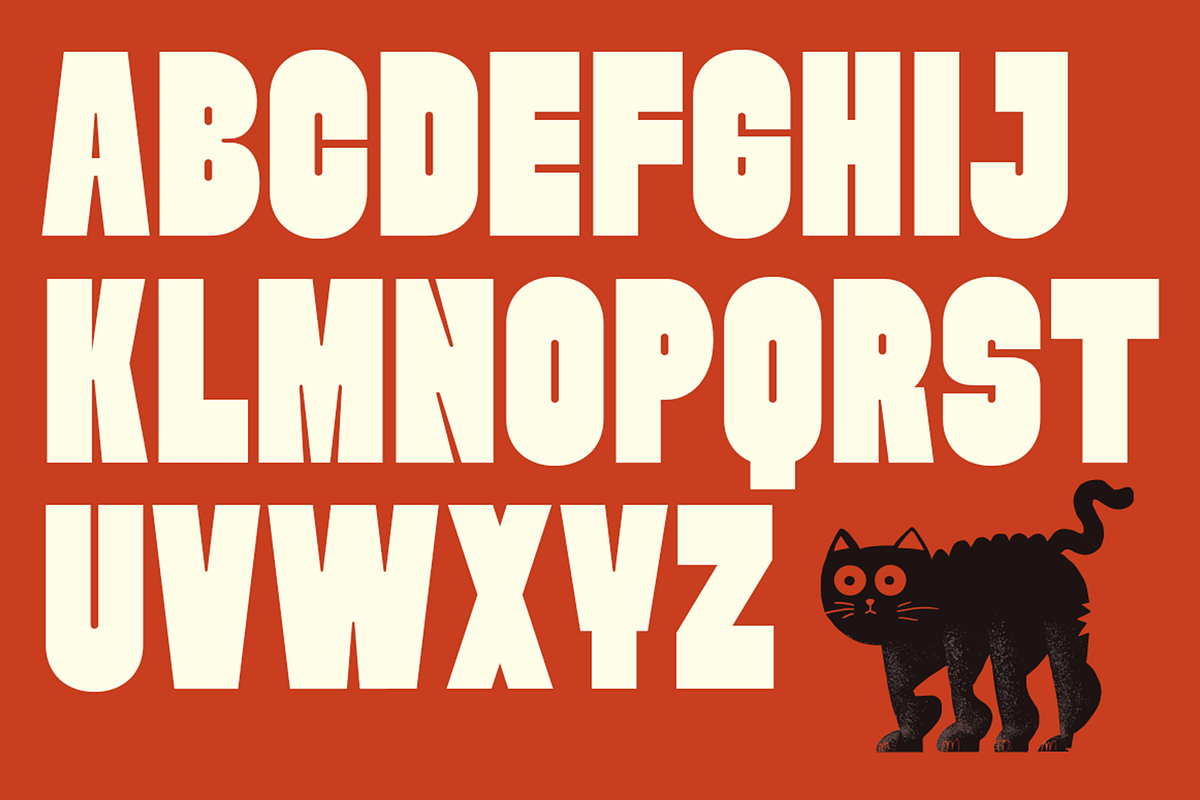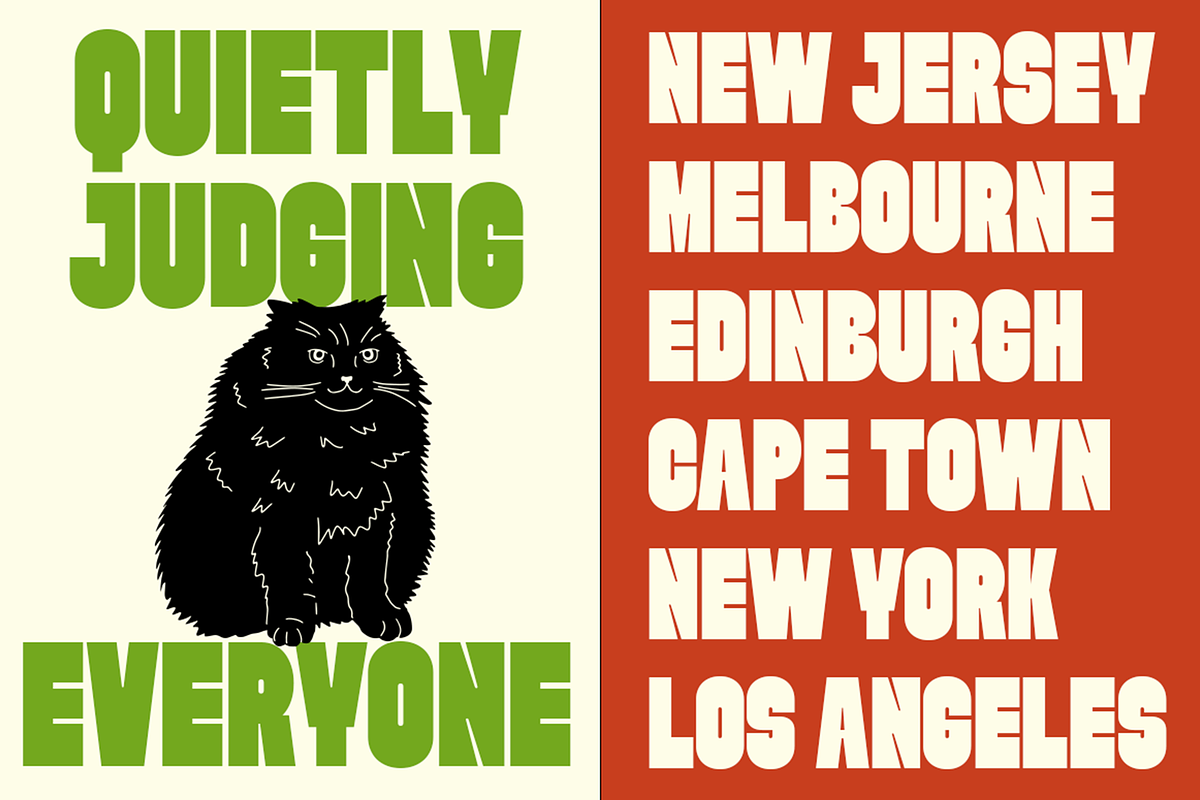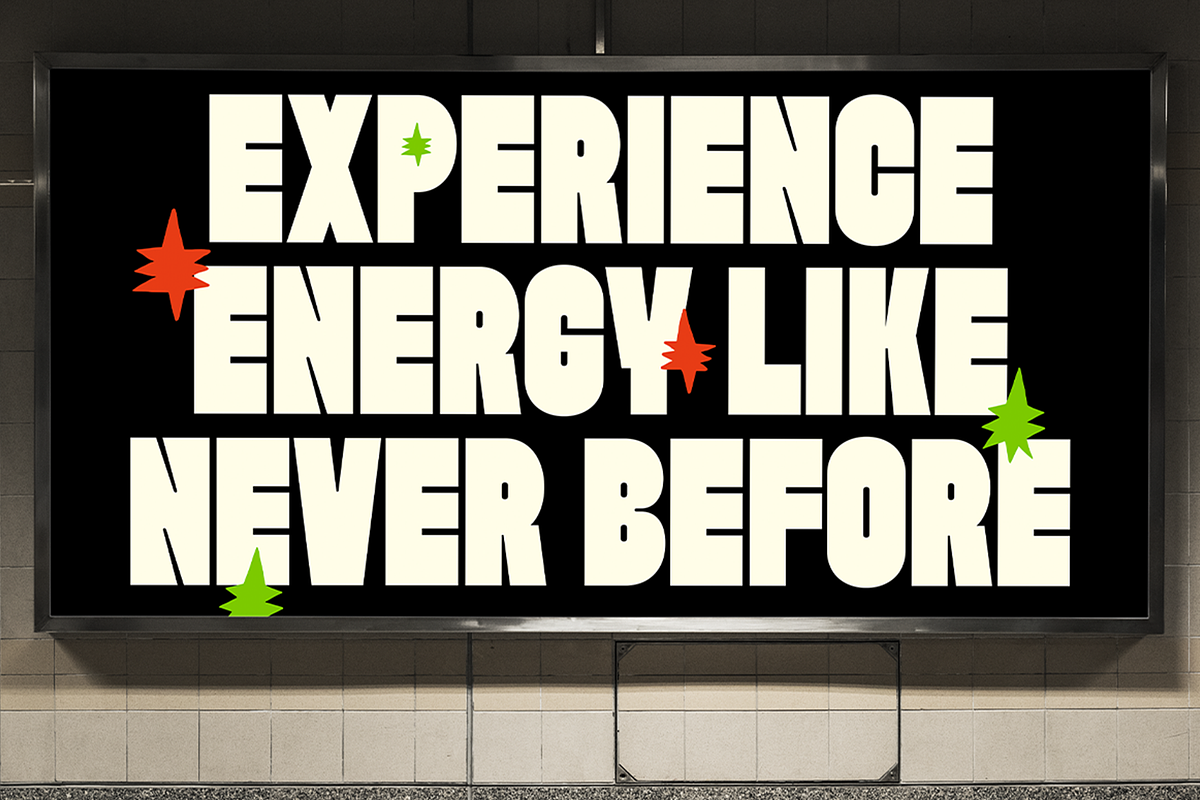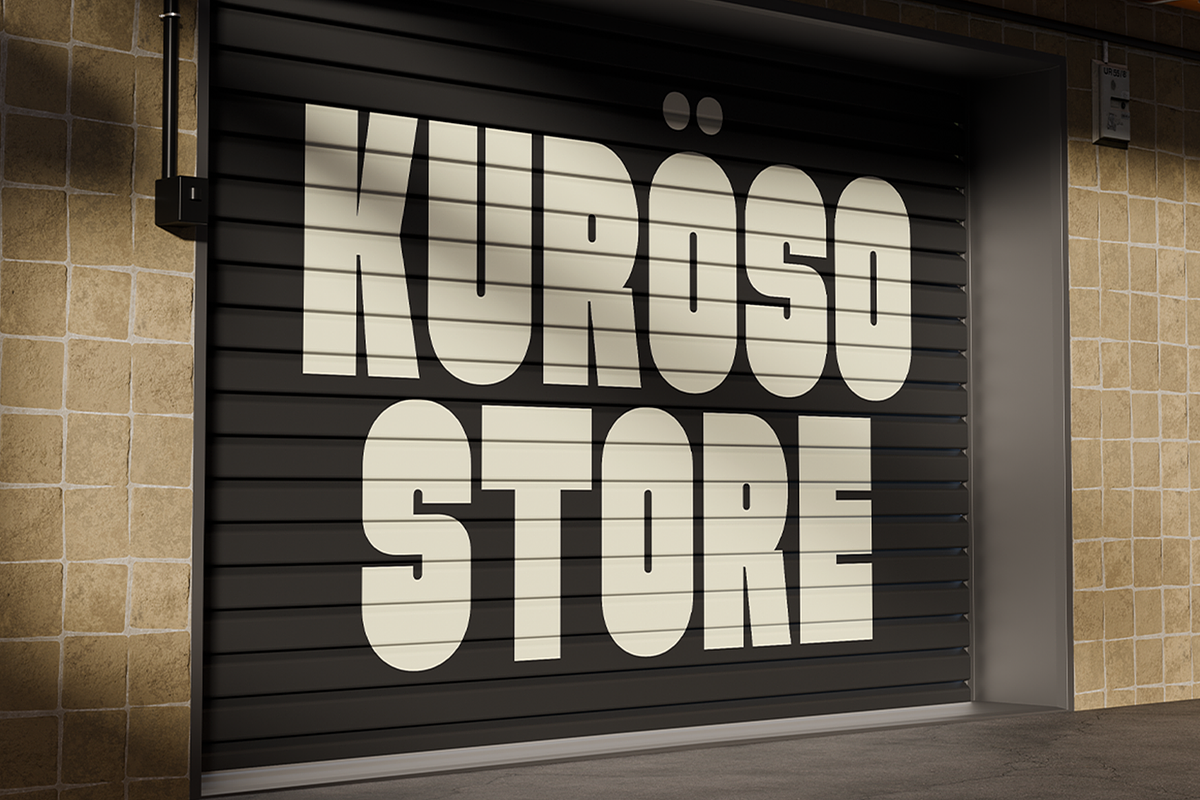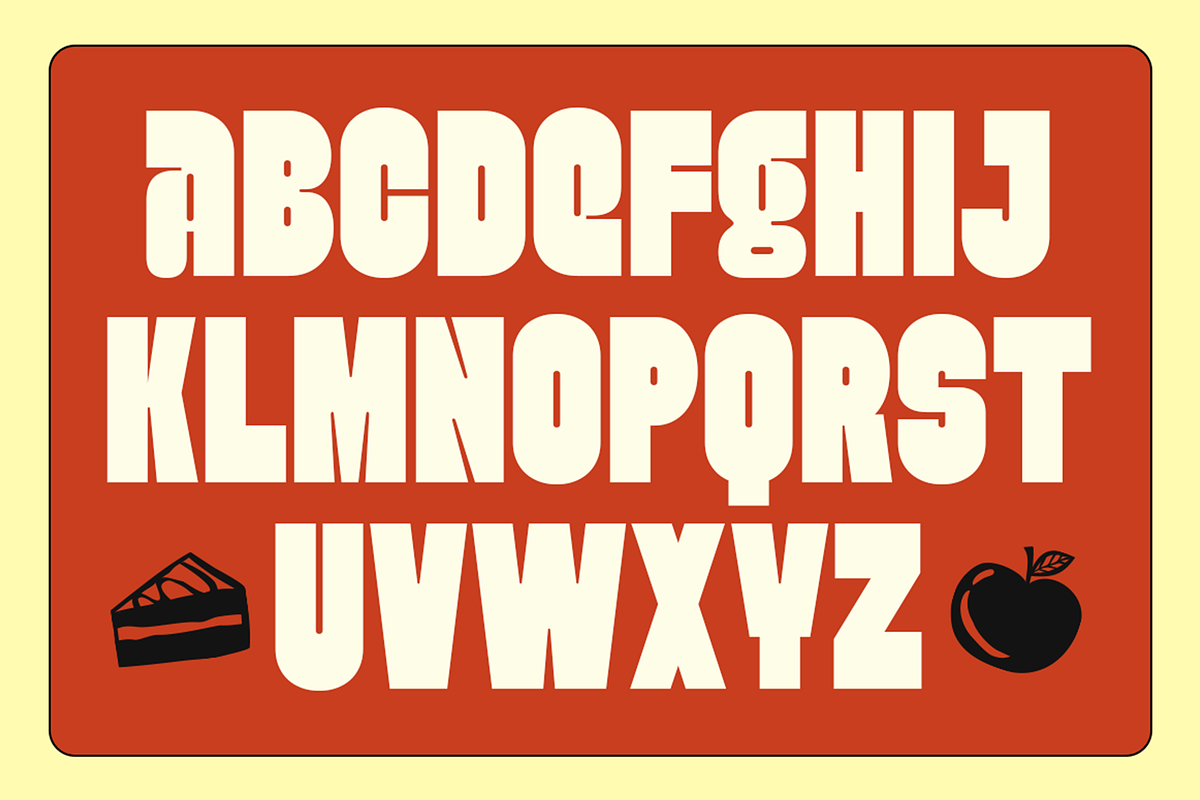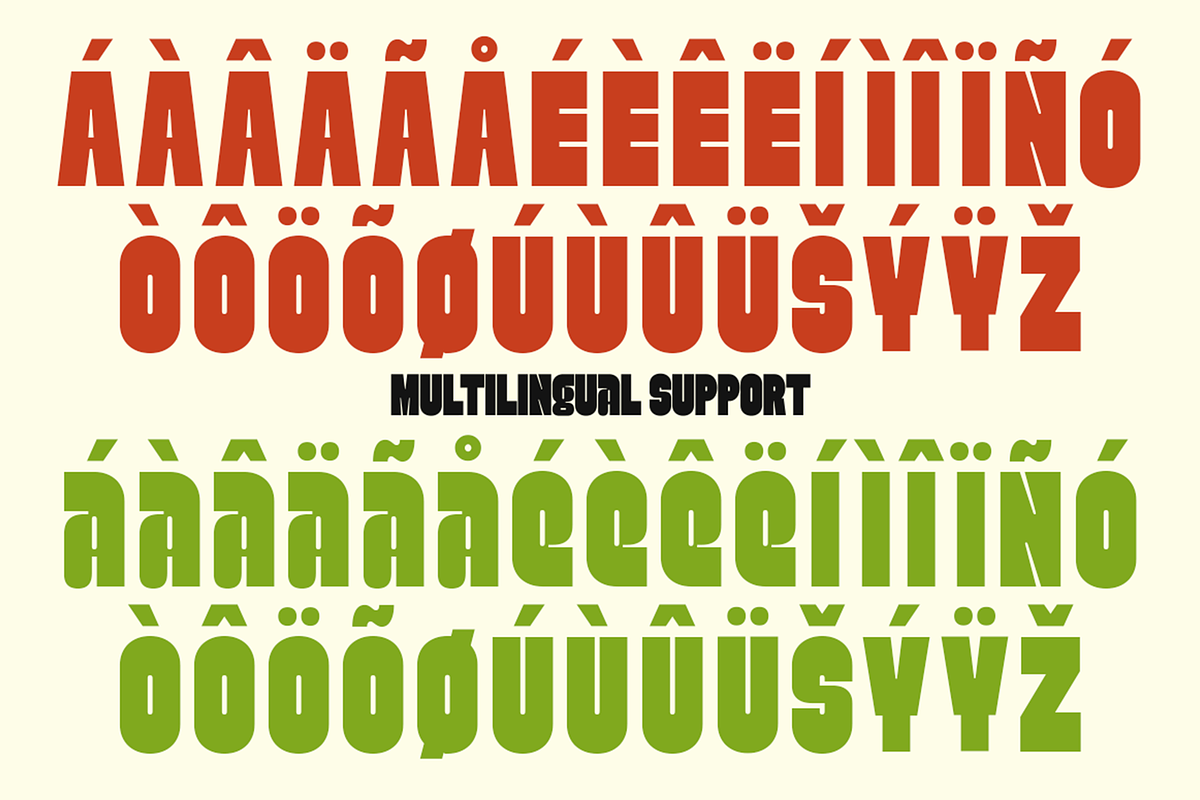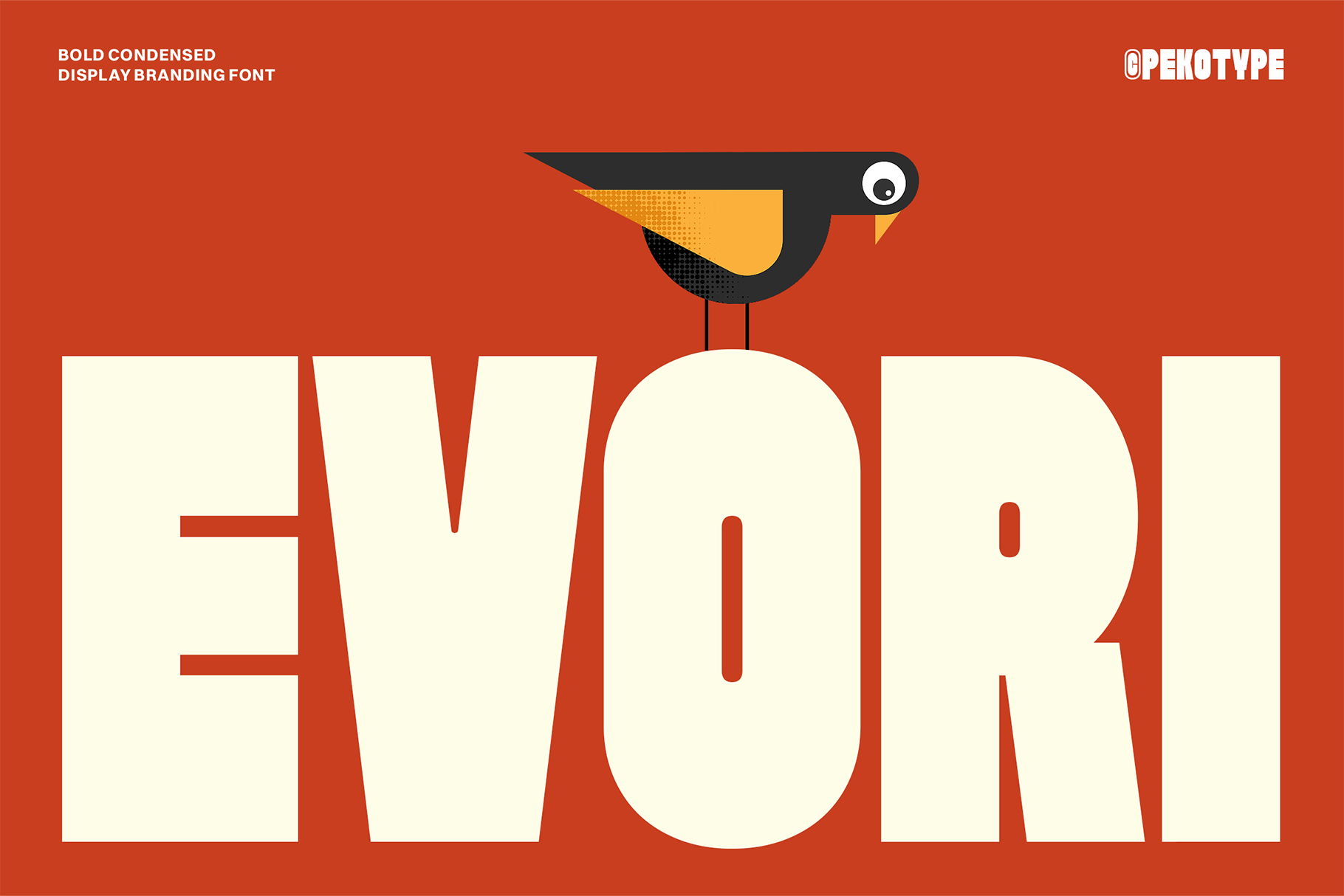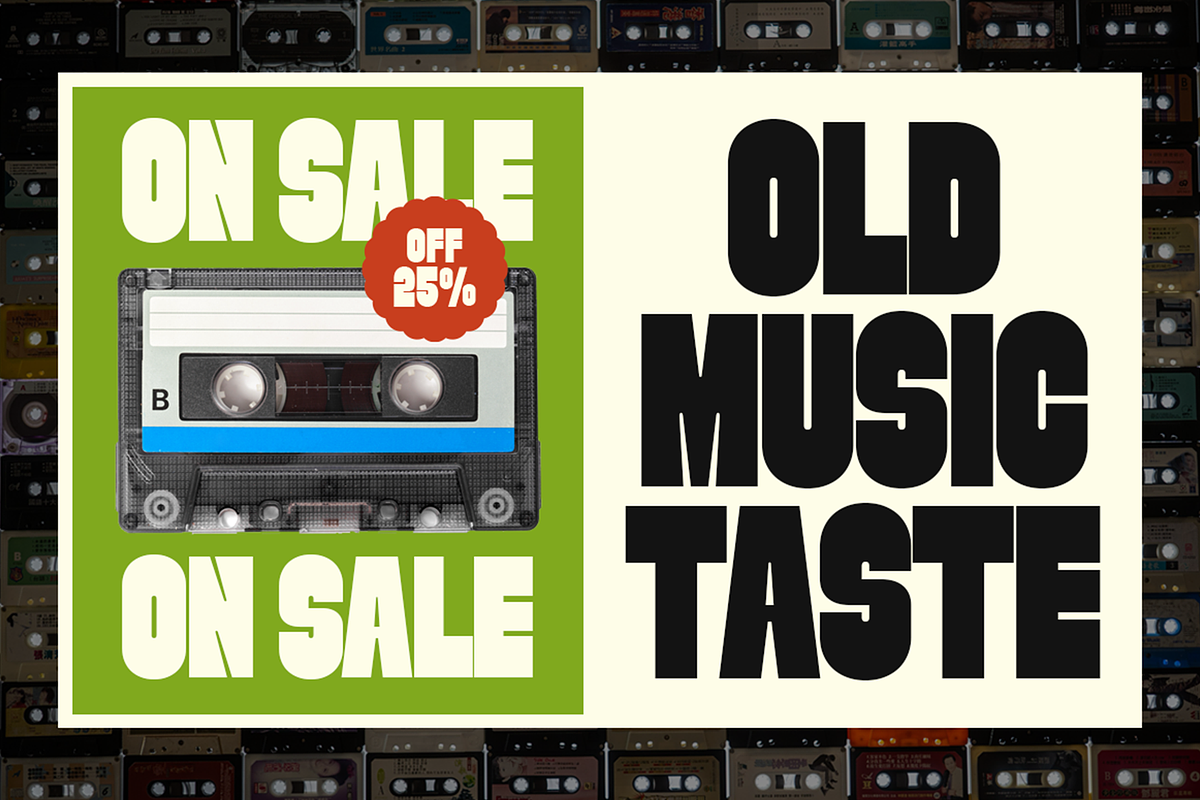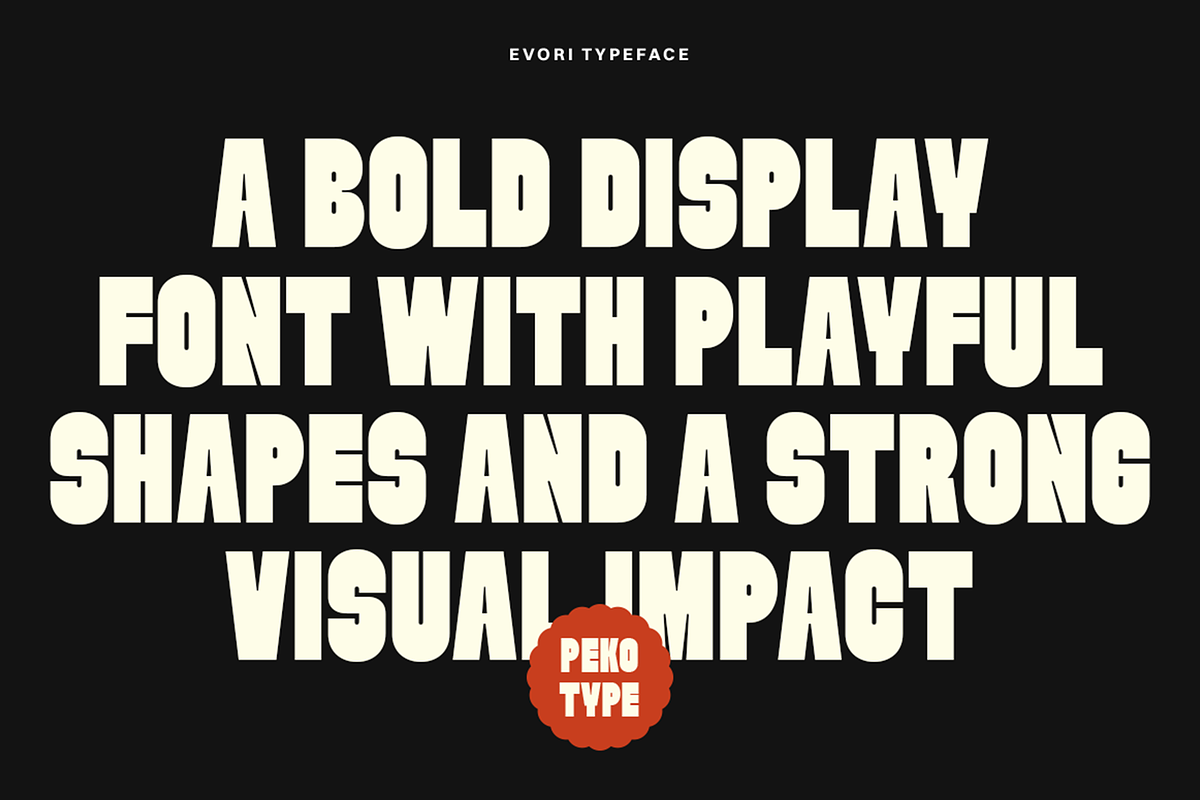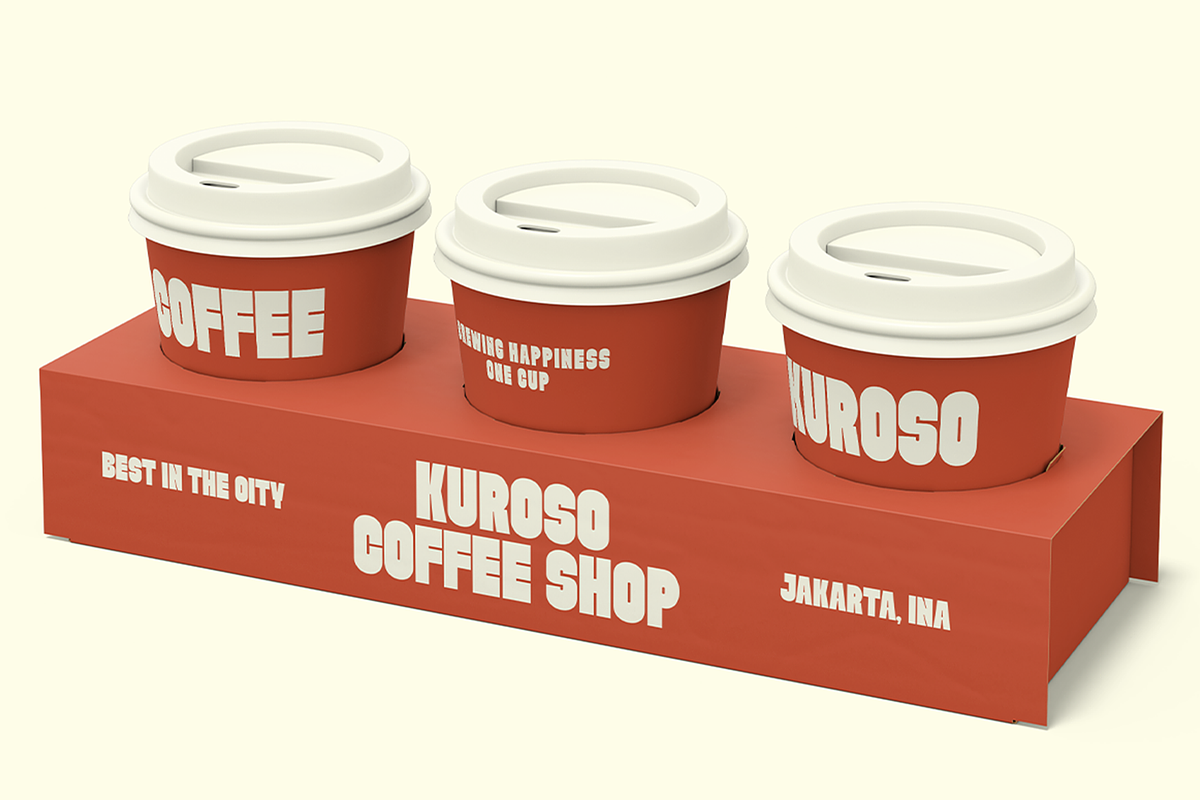
Evori - Bold Condensed Display Font
EVORI is a bold condensed display font made to grab attention with strong shapes and a clean, confident style. Its tall letterforms create a powerful look that works well for big headlines while staying clear and easy to read.
Perfect for branding, logos, posters, packaging, signage, social media graphics, music events, food and beverage brands, promotional materials, and editorial headlines. EVORI is a great choice when you want your design to feel bold, modern, and full of energy.
All Caps
Numbers, Symbols, & Punctuation